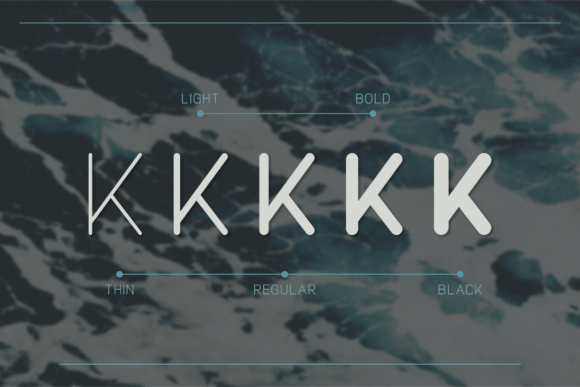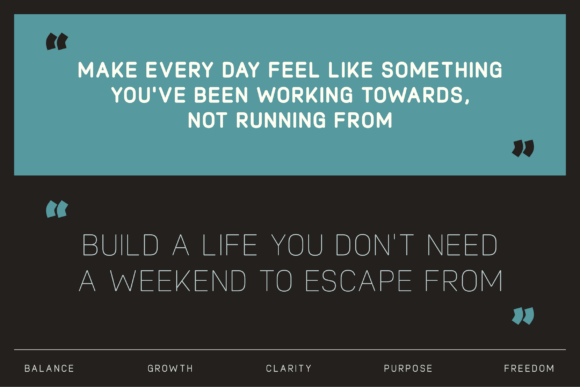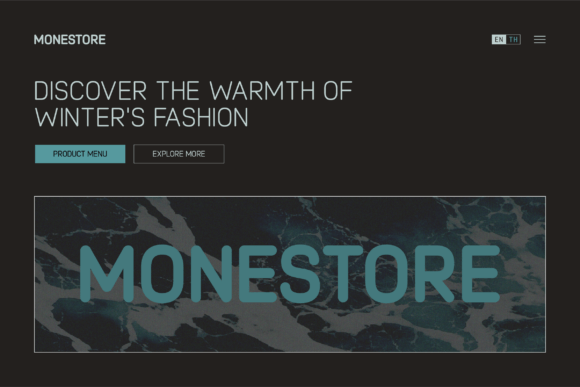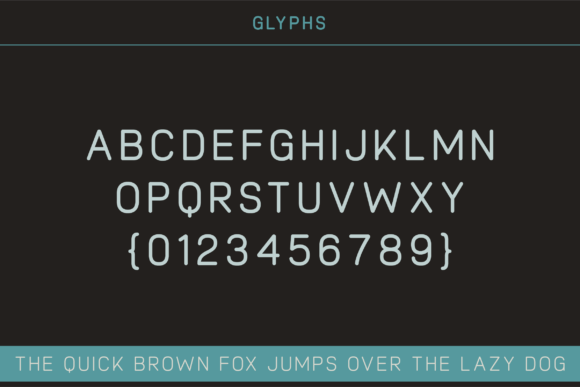
Introduction to Joliplay Rounded Font
Have you ever been in the midst of a creative project, staring at a blank canvas or screen, trying to find the perfect font to bring your vision to life? It’s that moment of frustration and excitement when the right typography can make all the difference. That’s exactly what the Joliplay Rounded Font is designed to do – add a touch of clarity, warmth, and personality to your creative endeavors.
As a valuable resource for designers, the Joliplay Rounded Font family offers a unique blend of legibility and aesthetic appeal. With its soft-rounded edges and sleek, geometric construction, this font is perfect for achieving a clean yet friendly visual identity. Whether you’re building a logo, packaging design, or high-impact headlines, Joliplay Rounded adapts beautifully while adding a polished, confident touch.
Key Features of Joliplay Rounded Font
- High-quality design resource ideal for creative projects, offering a unique and playful touch.
Honest Review: Joliplay Rounded Font
As a designer, I’m always on the lookout for high-quality design resources to elevate my creative projects. Recently, I stumbled upon the Joliplay Rounded Font, and I’m excited to share my thoughts on this lovely font.
- ✨ The font’s rounded edges give it a soft, approachable feel that works well for designs that require a friendly tone.
- ✨ The font is also highly versatile, making it suitable for a wide range of creative projects, from logos to digital products.
- ⚠️ The font’s rounded edges can make it difficult to read at small sizes, so be sure to test it in different contexts.
Overall, I’m impressed with the Joliplay Rounded Font. While it may have some limitations, its free download and high-quality design make it a valuable addition to any designer’s toolkit. If you’re working on a creative project and want a friendly, approachable font, the Joliplay Rounded Font is definitely worth considering.